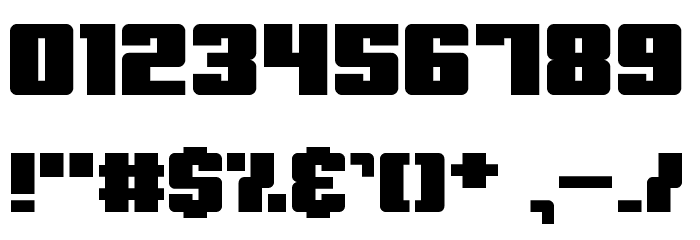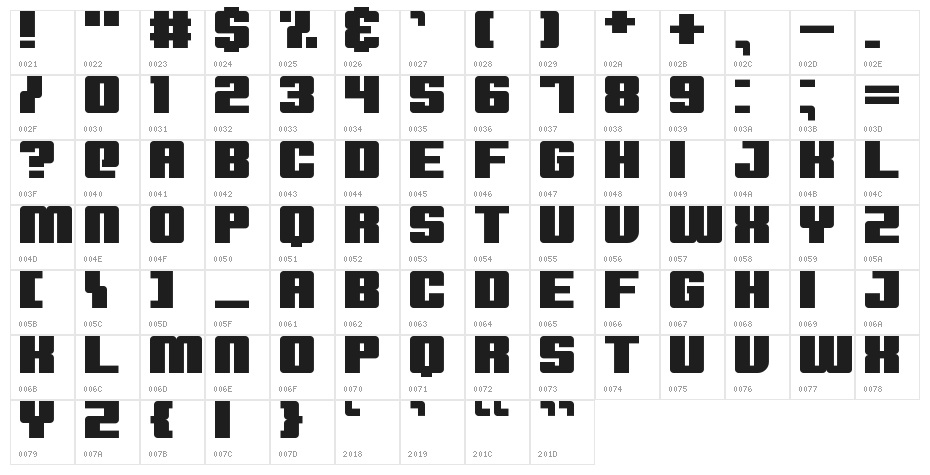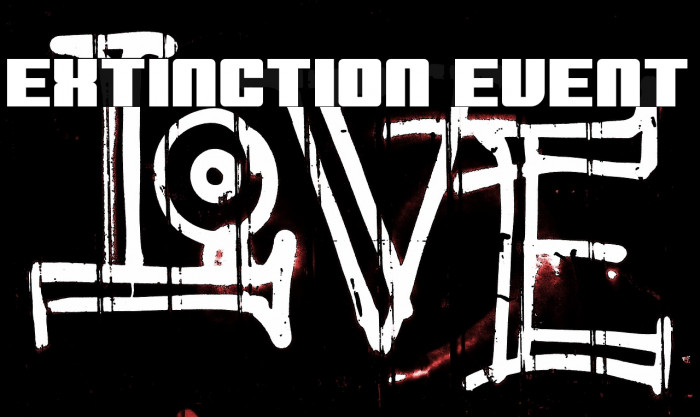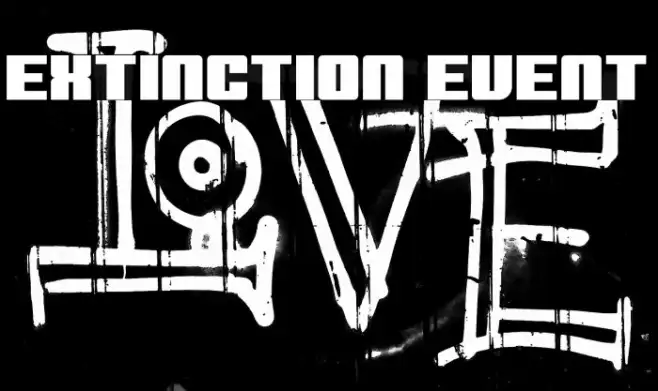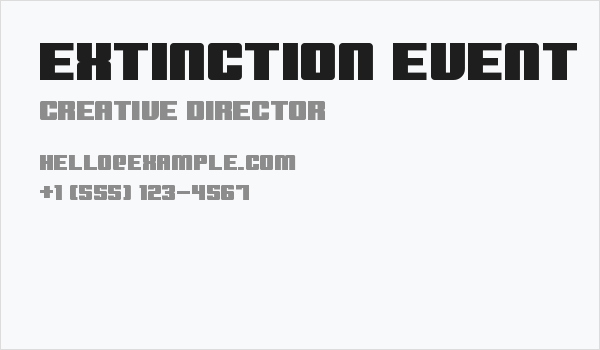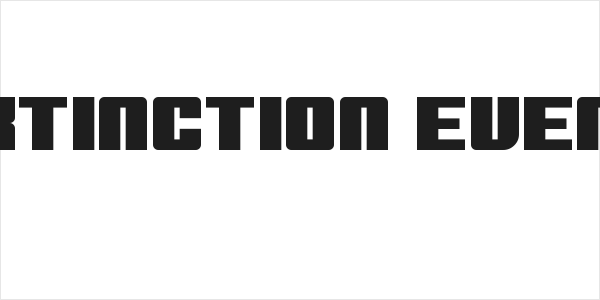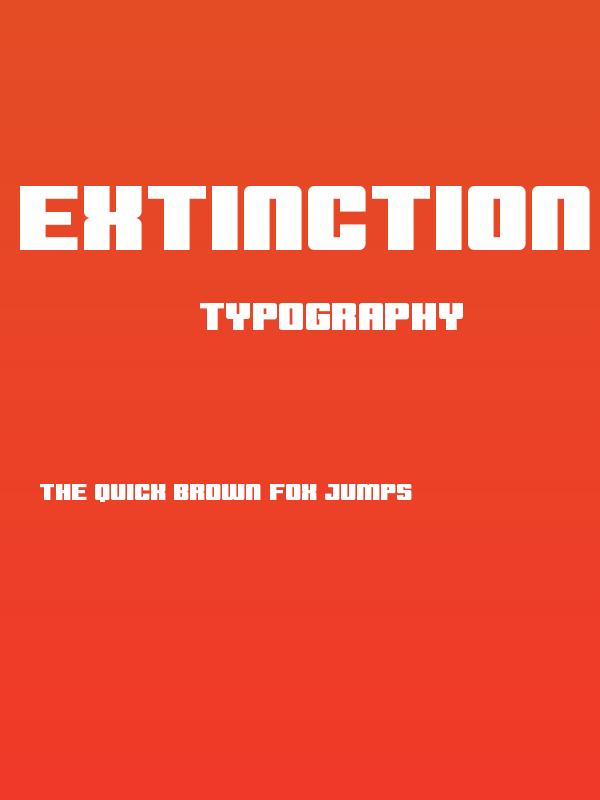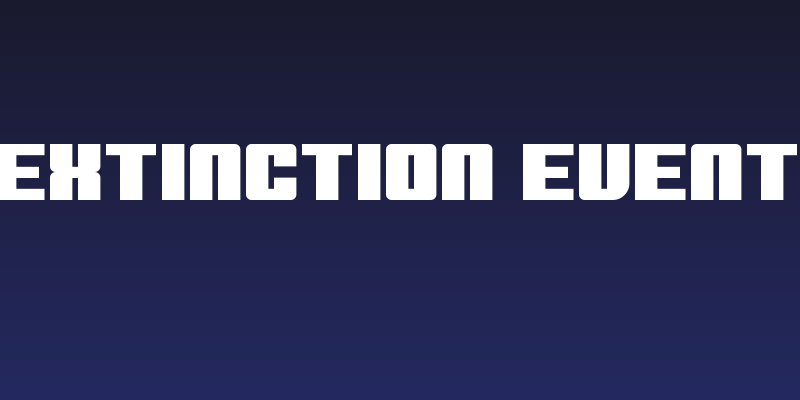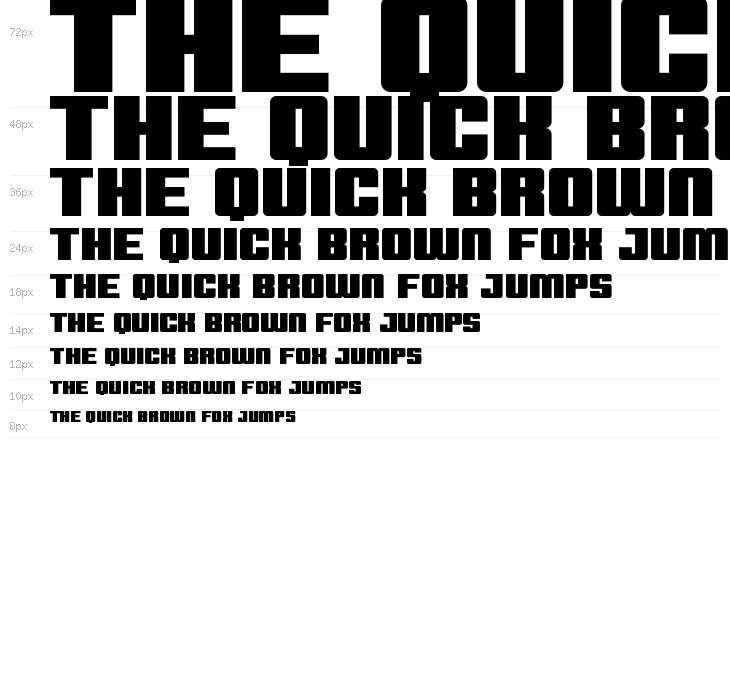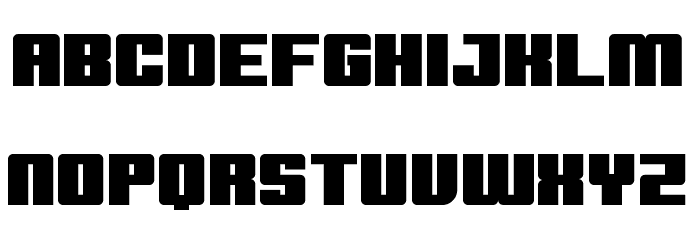
Extinction Event Font
Extinction Event Description
This font features a bold, blocky design with a strong geometric structure. The characters are uniformly wide, creating a sense of solidity and impact. The uppercase letters are particularly striking, with a consistent height and width that emphasizes their presence. The numbers and special characters follow the same robust style, ensuring a cohesive look across all text elements. The font's design is reminiscent of industrial or futuristic themes, making it suitable for projects that require a strong visual statement. Its boldness and uniformity make it ideal for attention-grabbing headlines or logos.
| Proposed Projects | Perfect for branding, posters, video game graphics, and any project needing a bold, modern look. |